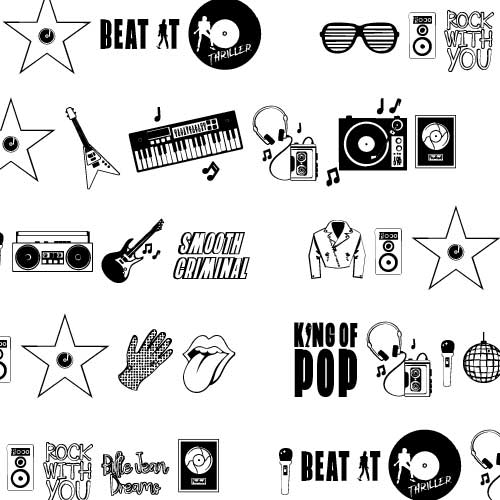
DB Smooth Criminal - Pop Legacy - DB
This fun doodlebat font features 26 iconic musical pop culture imagery. Perfect for cards, crafts, gifts, planner stickers, scrap book pages, parties, classrooms and more!